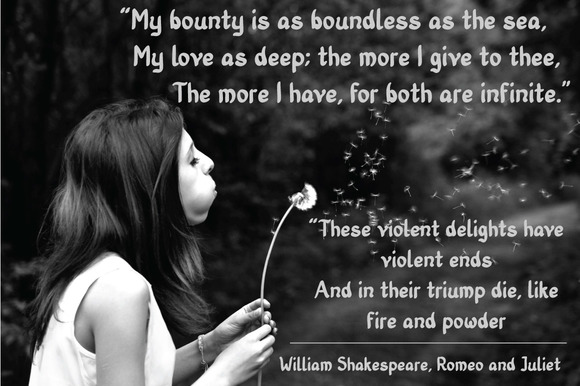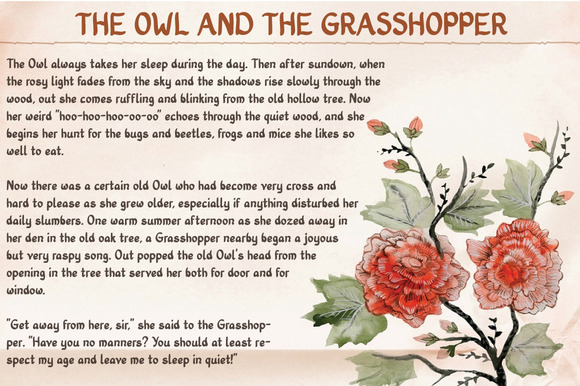
Old Story Bold Font
About Old Story Bold Font
Old Story is a strong, bold handmade font.
The Old Story font feels like beautiful script that is from the last century.